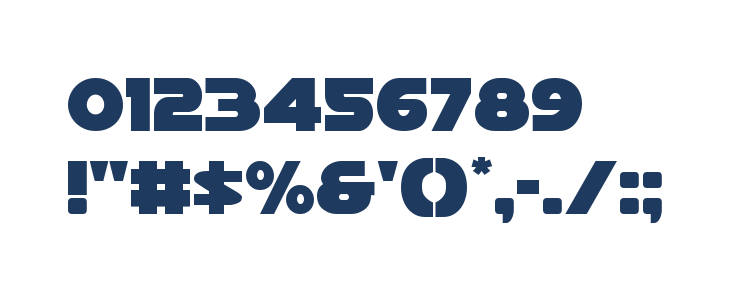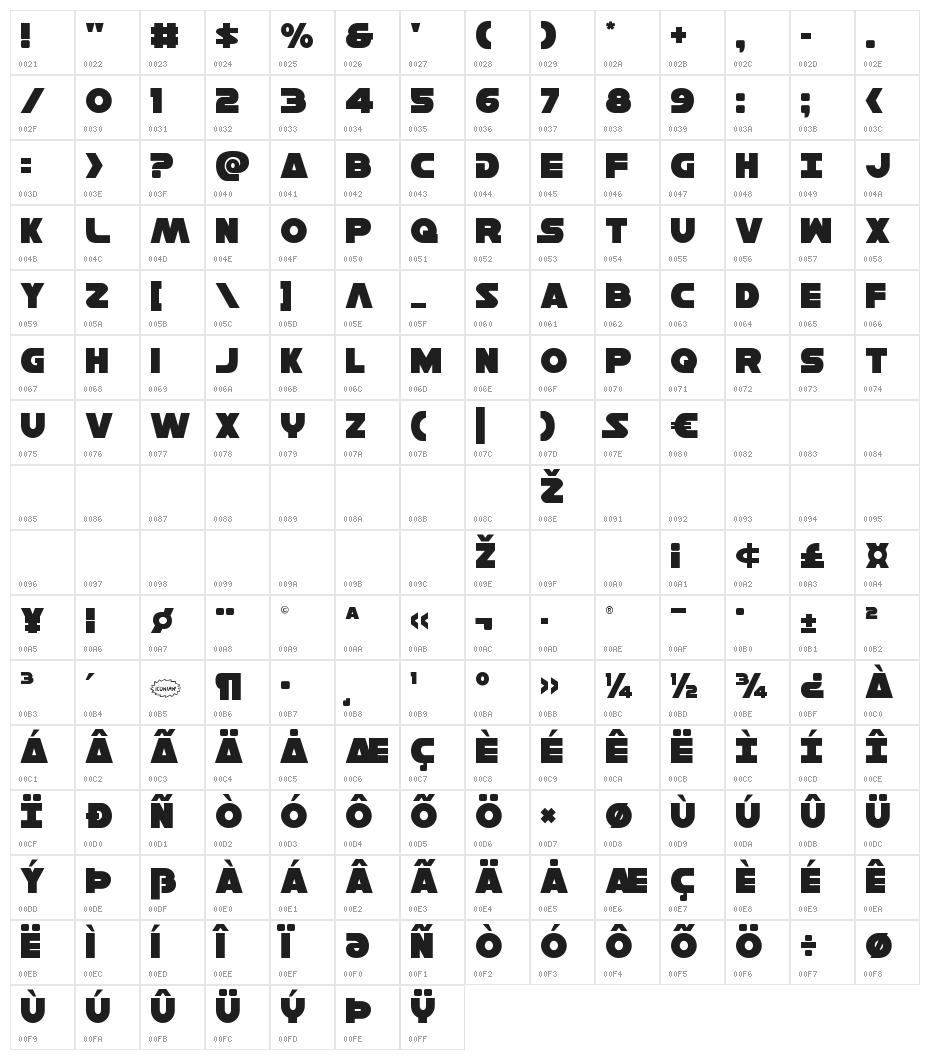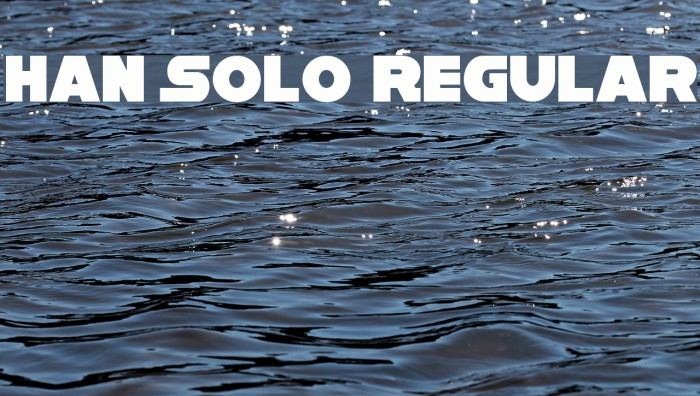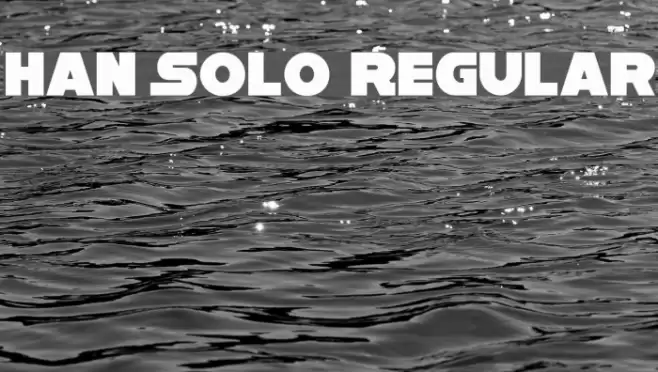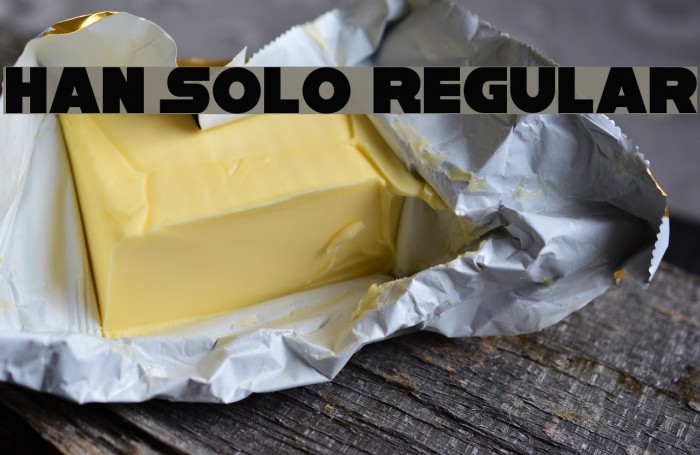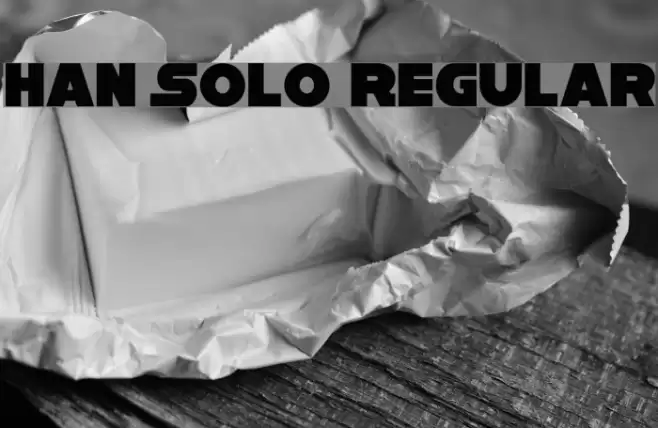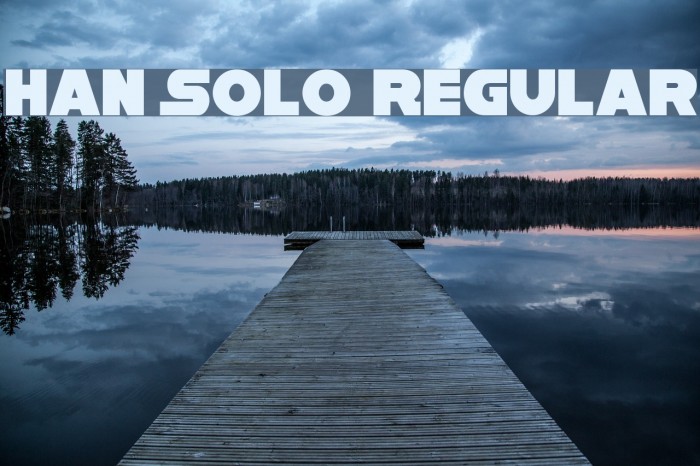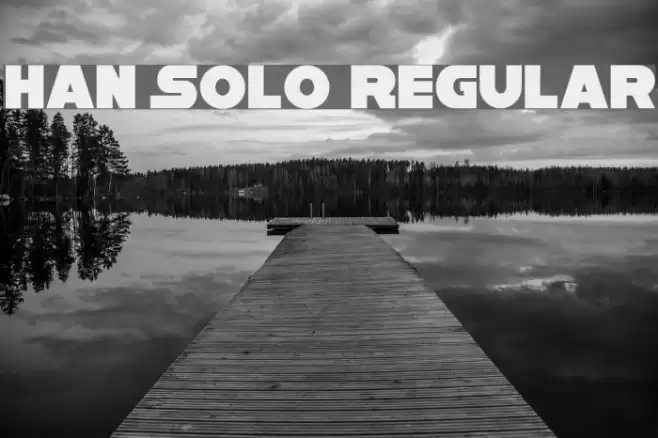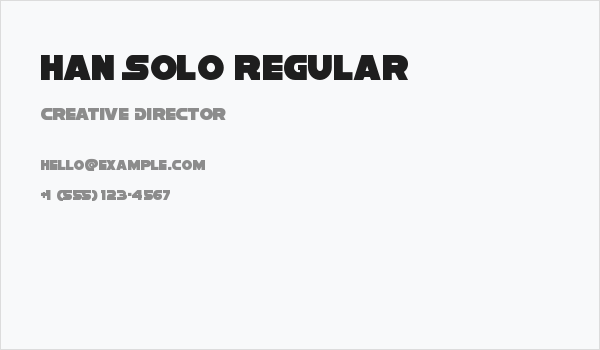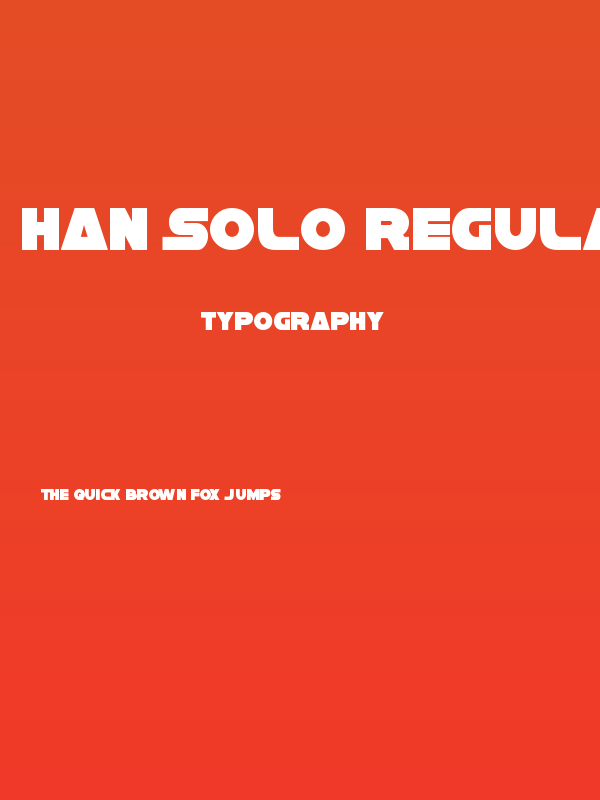
Han Solo Regular Font
Han Solo Regular Description
This font features a bold, futuristic design with strong geometric shapes and a distinct sci-fi aesthetic. The uppercase letters are characterized by their blocky, angular forms, giving them a robust and commanding presence. The lowercase letters maintain the same boldness, ensuring consistency across the typeface. Numbers and special characters are designed to match the overall style, with a focus on symmetry and balance. The font's unique style makes it ideal for projects that require a modern, tech-inspired look.
Overall StyleFuturistic, Sci-Fi
Proposed ProjectsIdeal for sci-fi themed projects, tech branding, video game titles, and futuristic posters.